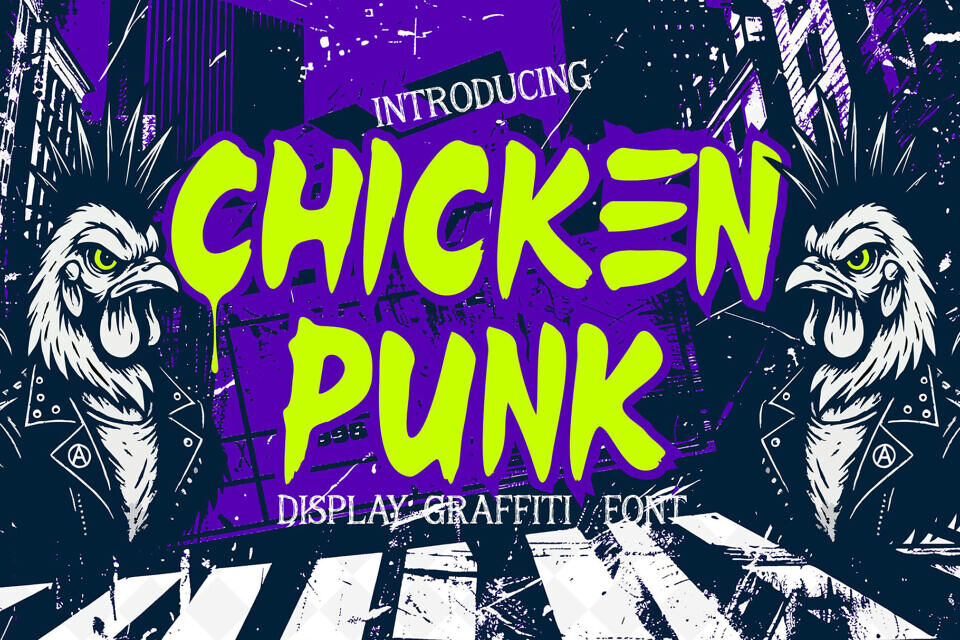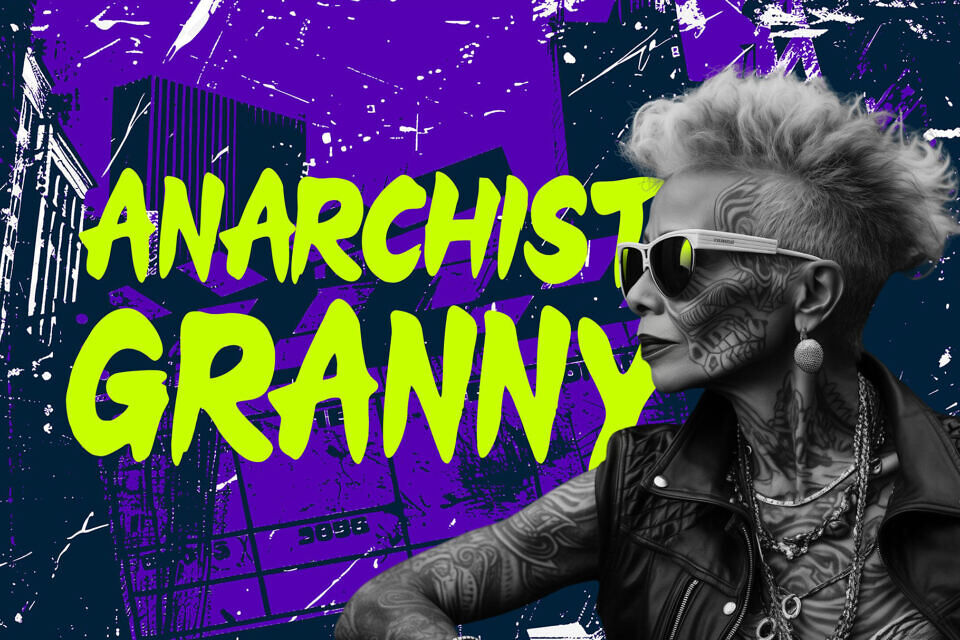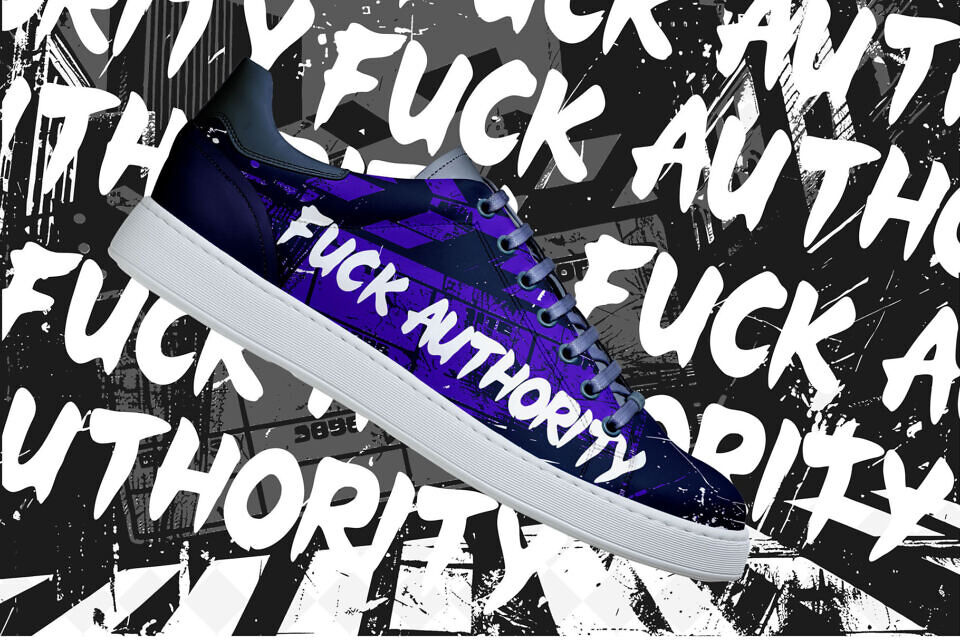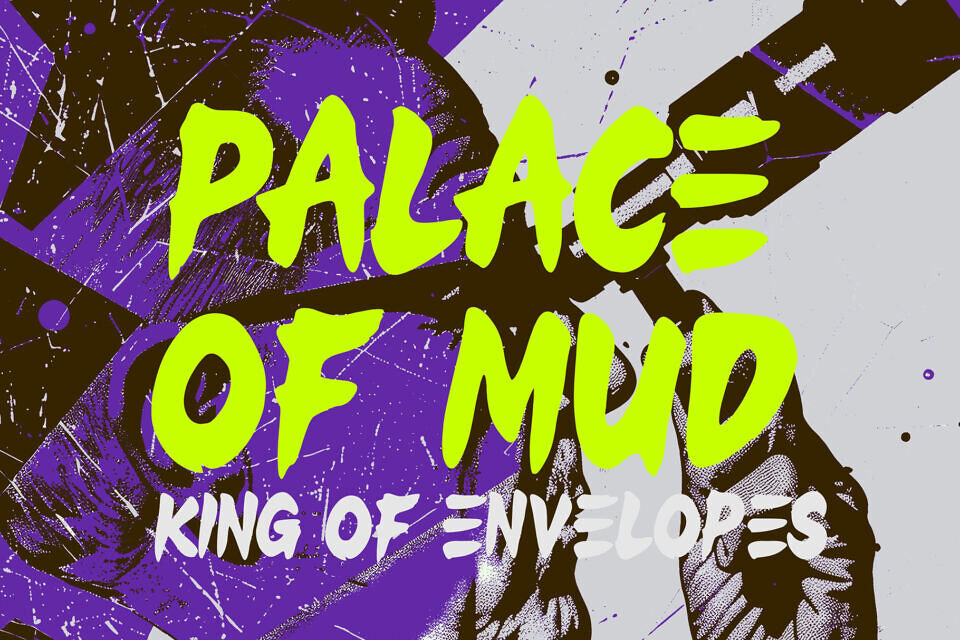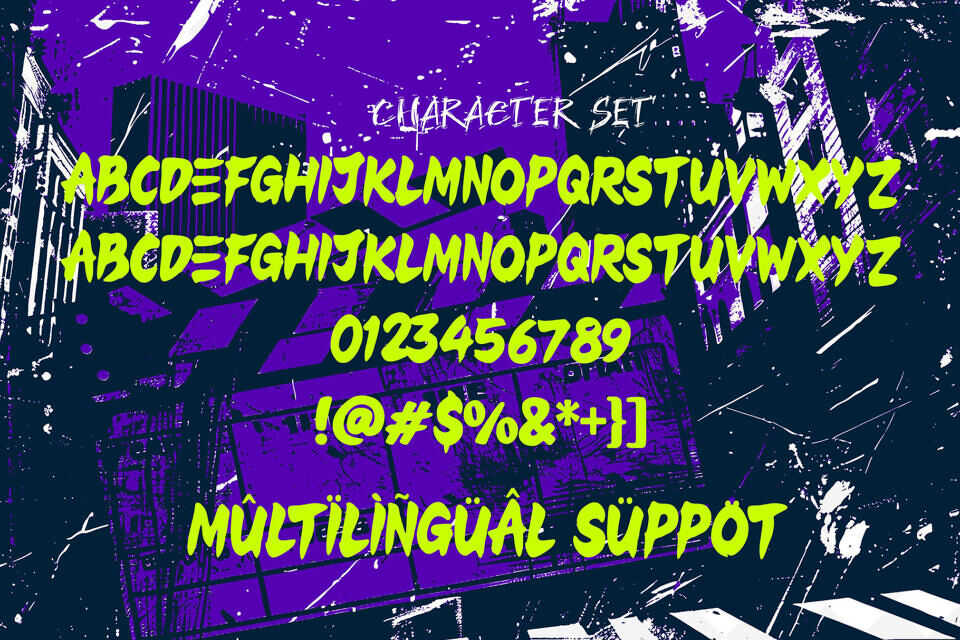
Ignite your designs with Chicken Punk, a bold graffiti font infused with raw street style and punk energy. Inspired by underground culture, skate scenes, and urban rebellion, this fearless typeface delivers authentic hand-drawn rhythm and powerful letterforms.
Featuring uppercase characters, and multilingual support, Chicken Punk captures the gritty essence of graffiti walls and city noise. Perfect for streetwear branding, album art, posters, and merchandise, this font celebrates bold creativity and DIY punk spirit—unpolished, expressive, and unapologetically urban.